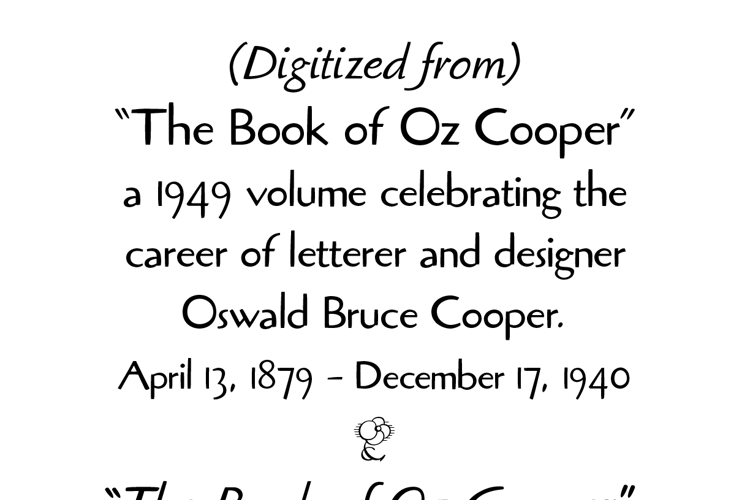
Oz Brush Font
Digitized by the late Peter Fraterdeus from 1949's "The Book of Oz Cooper," which celebrated the life of letterer and designer Oswald Bruce Cooper, whose most famous design was Cooper Black.